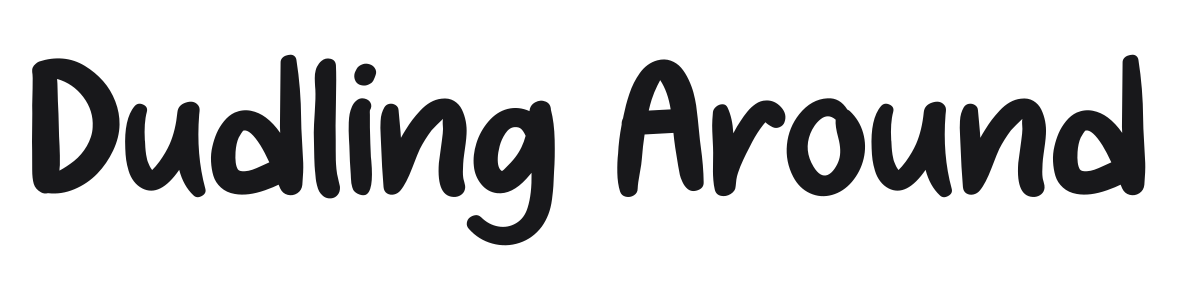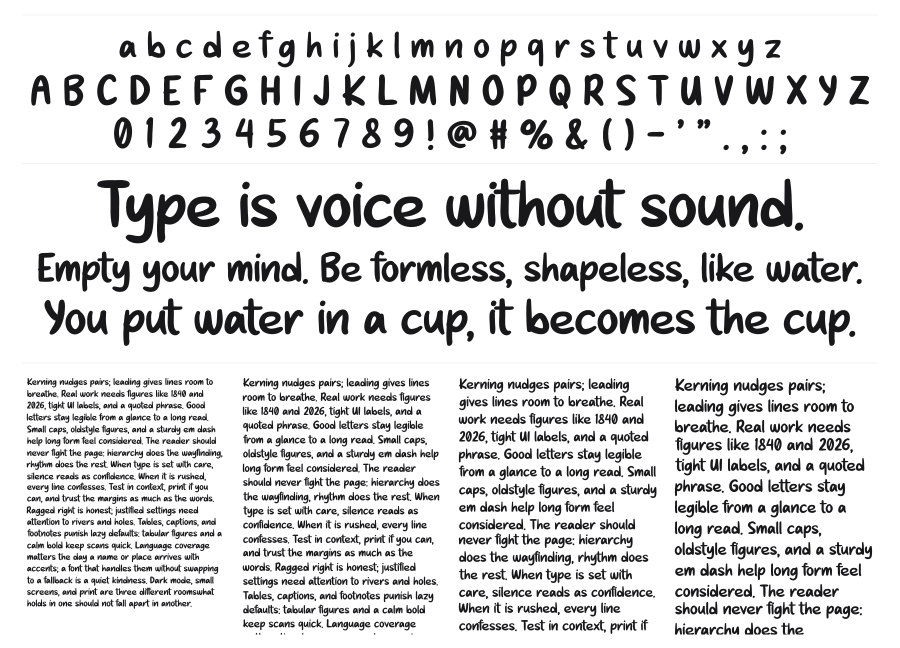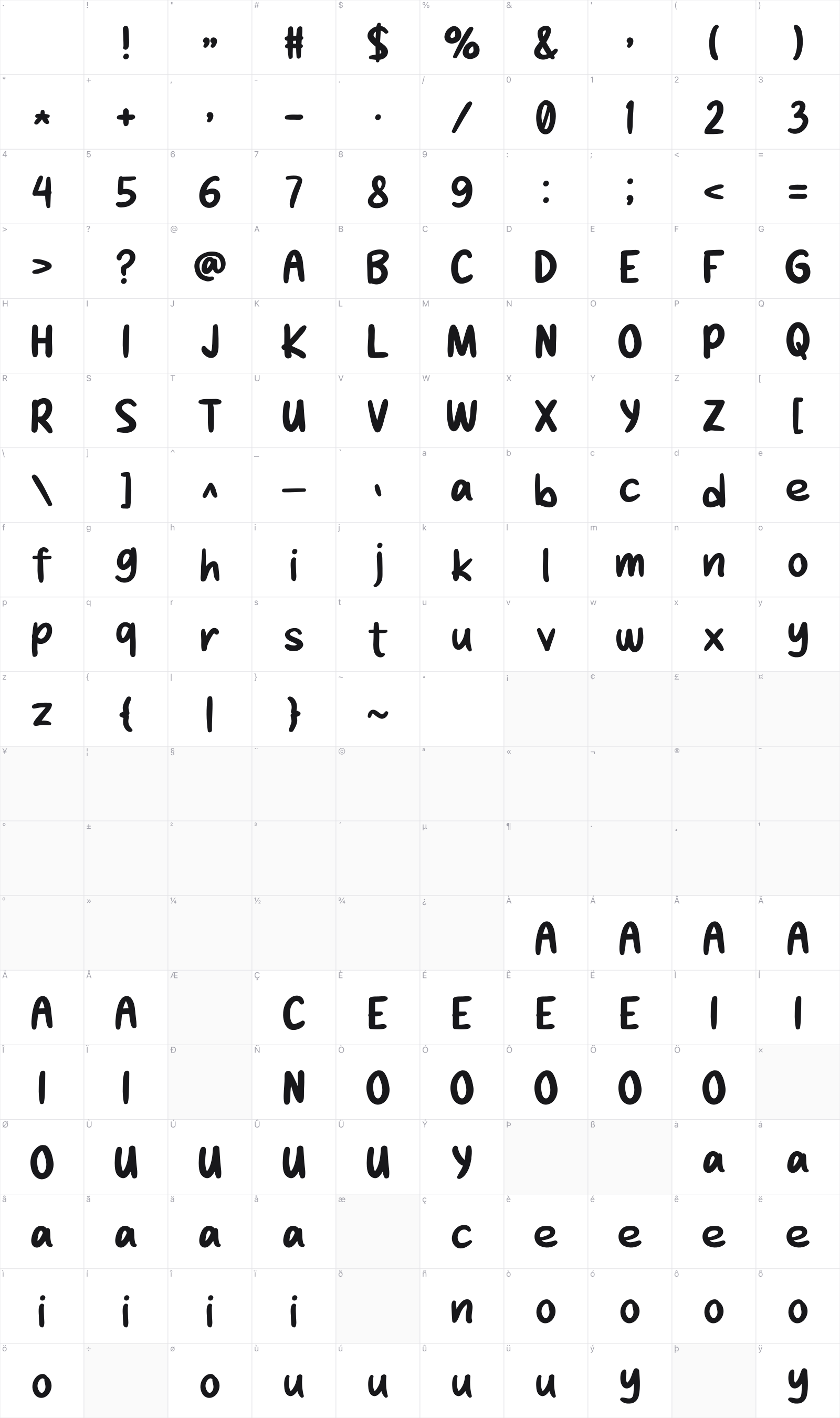
Dudling Around
Dudling Around is a bold, rounded casual script that feels like confident marker lettering straight off the page. Its thick strokes and lively baseline give it an energetic spontaneity without becoming hard to read. A natural pick for children's content, food packaging, and anything that needs to feel genuinely warm and unpretentious.